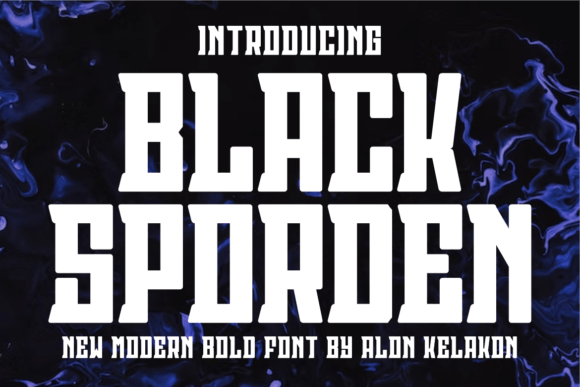
Unleash the Strength of Black Sporden: A Display Font Exuding Power and Authority
In the realm of visual communication, where words dance and images ignite emotions, there exists a font that commands attention and leaves an indelible mark - Black Sporden. This display font, emanating raw power and unwavering authority, is a masterpiece designed to turn heads and convey a message with undeniable impact.
Black Sporden's robust and straightforward letterforms exude a sense of strength and stability, making it the perfect choice for headlines, titles, emblems, and corporate branding. Each character stands tall, oozing confidence and authority, etching itself into the minds of those who behold it.
With its bold and assured attitude, Black Sporden elevates any design project, transforming it into a statement piece that demands respect and admiration. It effortlessly elevates titles, turning them into captivating focal points that draw the eye and leave a lasting impression. Emblems adorned with Black Sporden radiate power and distinction, commanding attention and conveying an aura of prestige. Corporate identities imbued with Black Sporden's strength project an image of stability, reliability, and unwavering commitment.